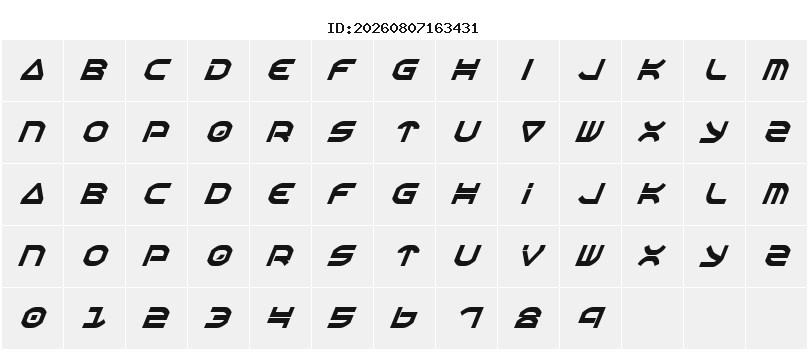
Oberon Condensed Italic Preview
• Font Name: Oberon Condensed Italic
• Font Style: Condensed Italic
• Full Font Name: Oberon Condensed Italic
About Oberon Condensed Italic.ttf
Oberon Condensed Italic.ttf is a modern, elegant sans-serif font designed for ultimate readability and visual harmony. Perfect for branding, headlines, web design, and print materials.